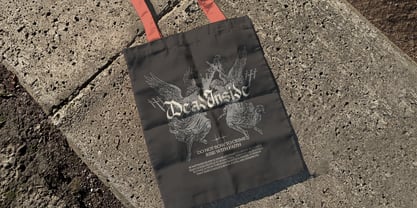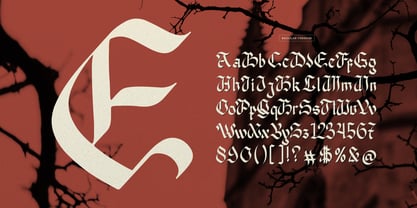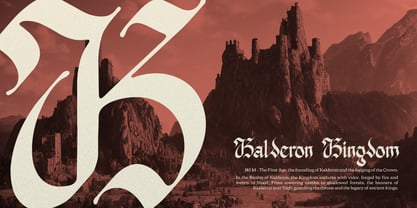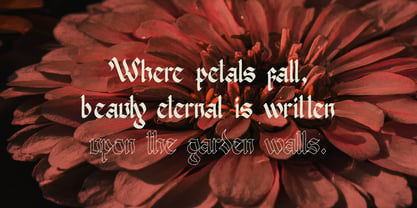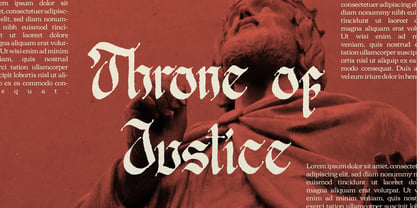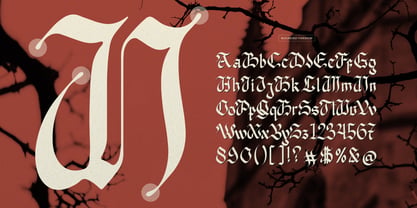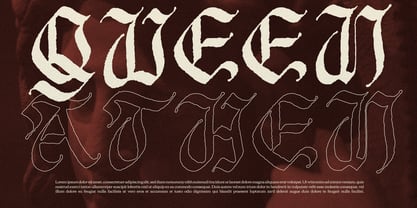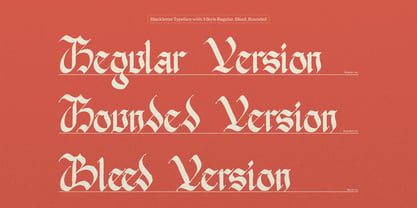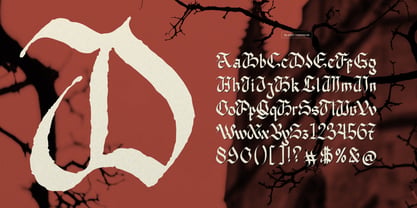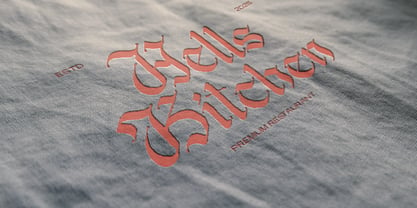
Nowdart Bleed
The Nowdart Bleed Font Family was designed by Dede Nugraha and published by Denustudio. Nowdart Bleed contains 3 styles and family package options. More about this family
Nowdart | Blackletter Typeface, from Denustudios, suitable for any projects such as: logos, branding projects, homeware designs, product packaging, mugs, quotes, posters, shopping bags, t-shirts, book covers, name card, invitation cards, greeting cards, label, photography, watermark, special events, and all your other lovely projects that need Blackletter a taste.